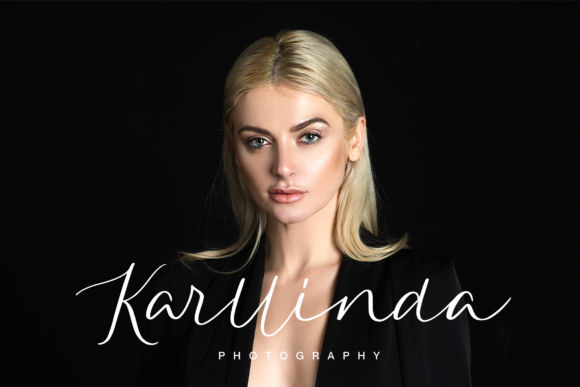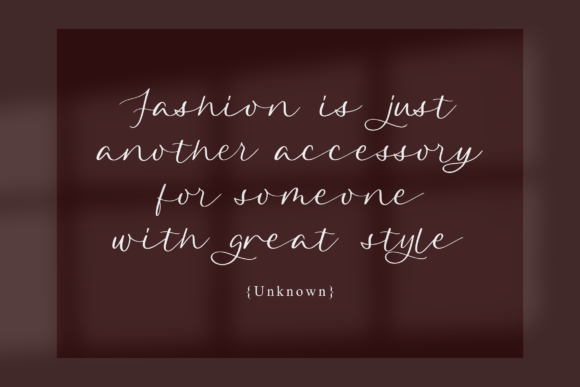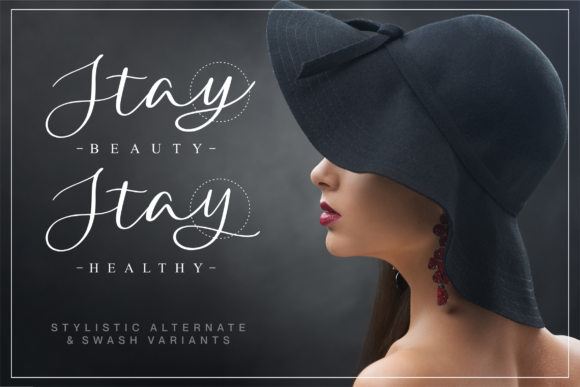
Introduction to Qarllottey Font
Qarllottey is a beautiful and refined script font.
It has a classy, elegant and modern look that can be used for logos, branding, invitations, stationery, wedding designs, social media posts, and much more .